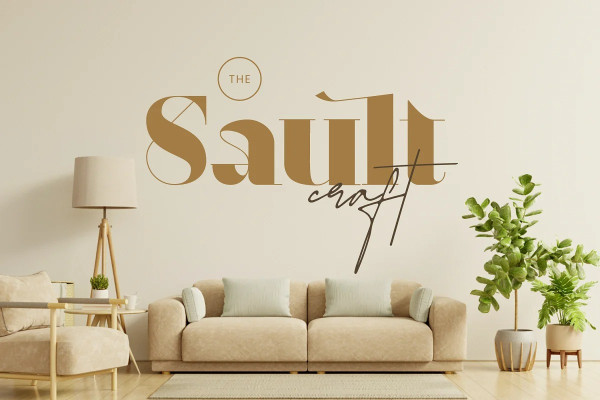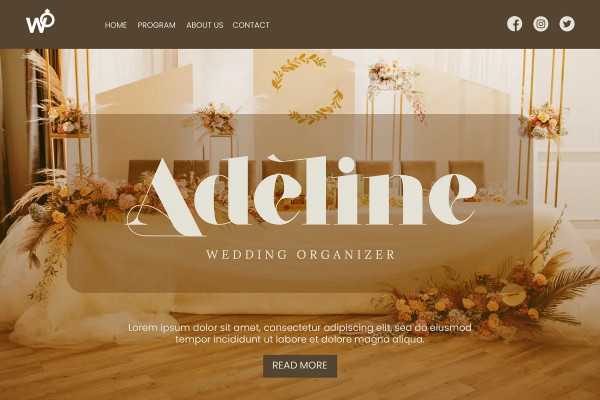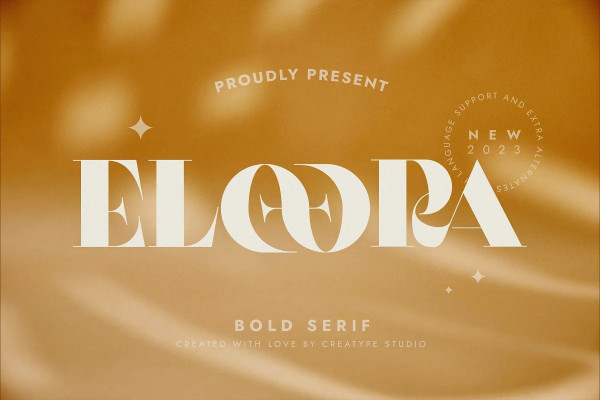
Eloora Font
Eloora Font, the high-contrast bold serif typeface that seamlessly combines boldness with elegance, providing a versatile design solution for your brand
Eloora is perfect for branding projects, logos, wedding designs, social media posts, advertisements, product packaging, product designs, label, photography, watermark, invitation, stationery, and any projects that need handwriting taste.